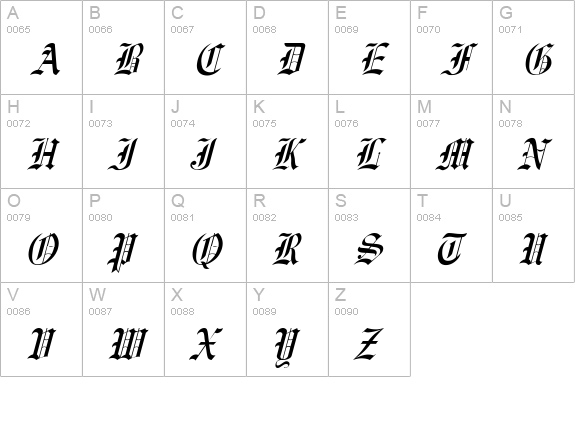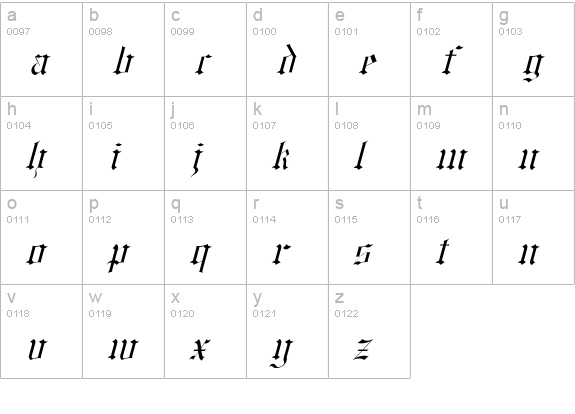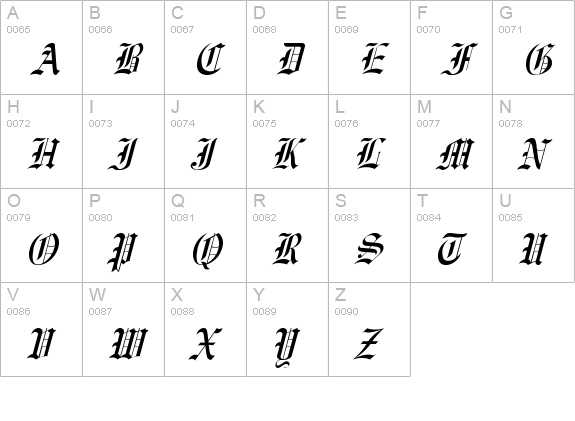
Baxter-Italic Font Details
Baxter-Italic is a distinctive, italic variant in the Baxter typeface family \xE2\x80\x94 well suited to design and typography projects.
Baxter-Italic font is a modern and stylish typeface that exudes elegance and sophistication. Its sleek and flowing italic design makes it perfect for adding a touch of class to your projects. Whether you are creating invitations, logos, or branding materials, Baxter-Italic font is sure to make a statement. Best of all, Baxter-Italic font is available for free download at FontsMarket.com. This means you can easily access this beautiful font and use it in your designs without any cost. Don't miss out on the opportunity to elevate your creations with the luxurious Baxter-Italic font – download it today and let your creativity shine!